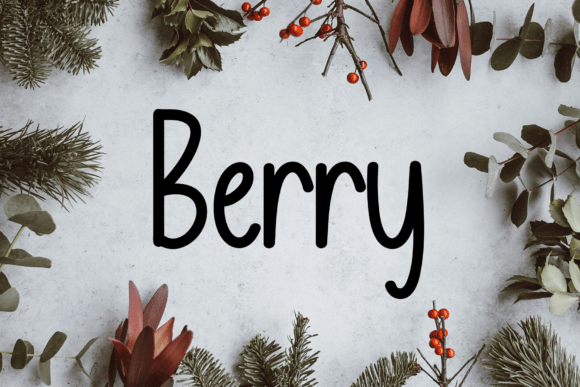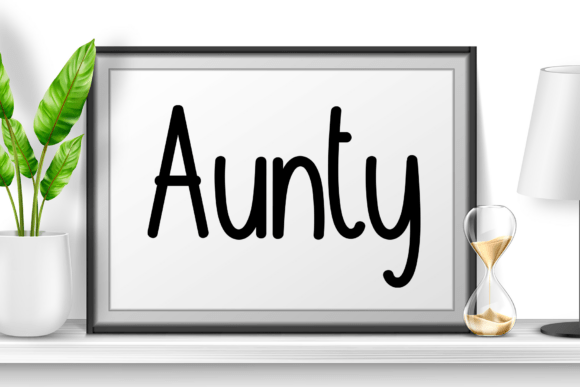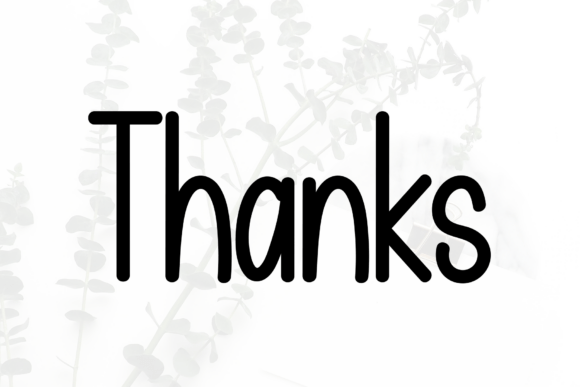
Discover the Power of Alphabeth Font: Elevate Your Design with a Professional and Modern Sans-Serif
In the world of typography, the right font can make all the difference in creating a lasting impression. For designers and crafters looking for a modern, professional, and versatile sans-serif font, Alphabeth is an excellent choice. This tall, condensed monolinear sans-serif font exudes a steady, professional rhythm, making it perfect for a wide range of design applications.
What Makes Alphabeth Font Stand Out?
As part of a “Special Display Font Collection,” Alphabeth boasts clean construction and a consistent stroke weight, making it an ideal choice for modern branding that requires a human touch without sacrificing clarity. Its key features include:
- Tall x-height: Alphabeth’s tall x-height gives it a distinctive and elegant appearance, making it perfect for headlines, titles, and logo designs.
- Condensed structure: The font’s condensed structure allows for efficient use of space, making it ideal for designs where text needs to be concise and impactful.
- Balanced, upright stance: Alphabeth’s balanced and upright stance conveys a sense of professionalism and stability, making it suitable for a wide range of design applications.
Best Use Cases for Alphabeth Font
Alphabeth’s versatility makes it suitable for various design projects. Here are some of the best use cases for this modern sans-serif font:
- Minimalist logo design: Alphabeth’s clean and elegant design makes it perfect for creating minimalist logos that require a professional and modern look.
- Editorial subheadings: The font’s condensed structure and balanced stance make it suitable for editorial subheadings, where text needs to be clear and concise.
- Contemporary social media graphics: Alphabeth’s modern design and consistent stroke weight make it an excellent choice for creating engaging and professional-looking social media graphics.
Benefits of Using Alphabeth Font
Using Alphabeth font in your design projects offers several benefits, including:
- Improved readability: Alphabeth’s clean construction and consistent stroke weight make it easy to read, even in small sizes.
- Enhanced professionalism: The font’s balanced and upright stance conveys a sense of professionalism and stability, making it suitable for corporate designs.
- Flexibility: Alphabeth’s versatility makes it suitable for a wide range of design applications, from logo design to editorial subheadings.
Tips for Using Alphabeth Font Effectively
To get the most out of Alphabeth font, here are some tips to keep in mind:
- Pair it with contrasting fonts: Alphabeth’s clean design makes it an excellent choice for pairing with contrasting fonts to create visual interest.
- Use it for headlines and titles: The font’s tall x-height and condensed structure make it perfect for headlines and titles.
- Experiment with different sizes: Alphabeth’s consistent stroke weight makes it suitable for use in various sizes, from small captions to large headlines.
Alphabeth font is a versatile and modern sans-serif font that offers a professional and elegant solution for designers and crafters. Its clean construction, consistent stroke weight, and balanced stance make it suitable for a wide range of design applications. Whether you’re creating a minimalist logo, editorial subheadings, or contemporary social media graphics, Alphabeth is an excellent choice. With its improved readability, enhanced professionalism, and flexibility, Alphabeth font is sure to elevate your design to the next level.